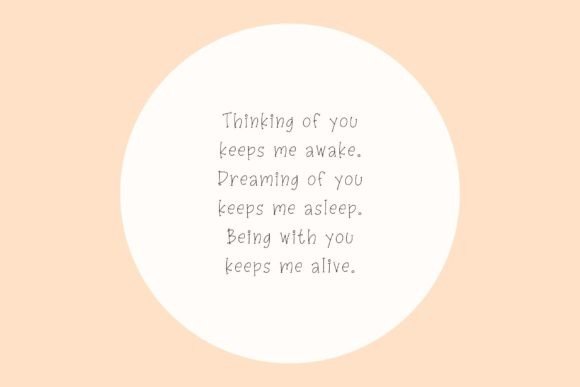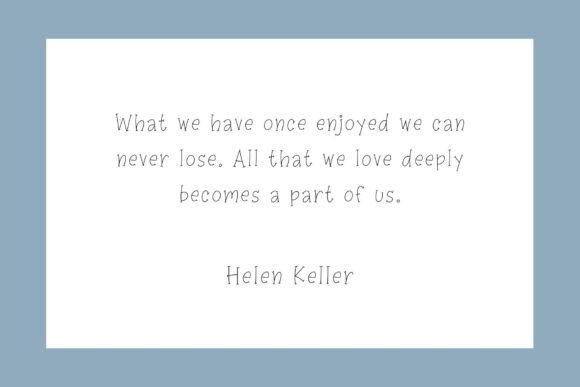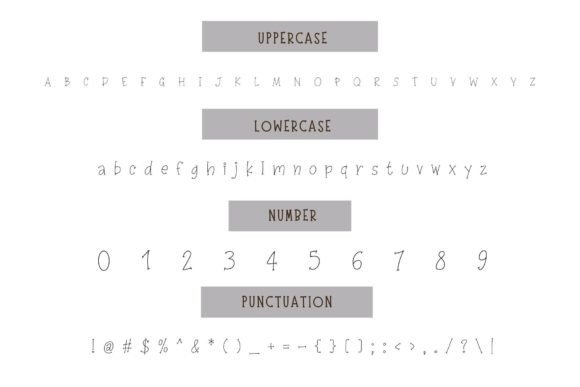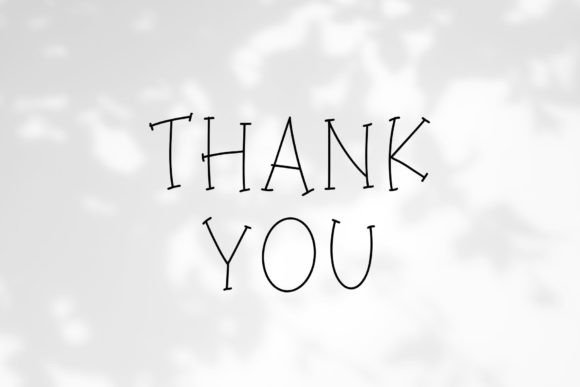
Introducing Grant Font: The Cute Handwritten Font for Creative Projects
Are you looking for a font that embodies playfulness and authenticity? Look no further than Grant Font! This adorable handwritten font is perfect for adding a personal touch to your designs, making it ideal for a wide range of projects. In this article, we’ll explore the features and benefits of Grant Font, and show you how to make the most of this versatile font.
What is Grant Font?
Grant Font is a cute handwritten font that is designed to bring a sense of playfulness and authenticity to your designs. Its unique and charming style makes it perfect for a variety of projects, from blog posts and logos to branding, ads, invitations, greeting cards, planners, photo albums, decorations, and more.
Key Features of Grant Font
- Handwritten style: Grant Font has a beautiful, handwritten style that gives your designs a personal and unique touch.
- Playful and authentic: The font embodies playfulness and authenticity, making it perfect for projects that require a friendly and approachable tone.
- Versatile: Grant Font can be used for a wide range of projects, from digital designs to print materials.
Benefits of Using Grant Font
So why choose Grant Font for your projects? Here are just a few benefits of using this amazing font:
- Adds a personal touch: Grant Font gives your designs a personal and unique touch, making them stand out from the crowd.
- Enhances creativity: The font’s playful and authentic style inspires creativity and imagination, helping you to come up with innovative design ideas.
- Perfect for branding: Grant Font is ideal for branding projects, as it helps to create a friendly and approachable tone that resonates with audiences.
- Great for DIY projects: The font is perfect for DIY enthusiasts and crafters who want to add a personal touch to their projects.
Project Ideas Using Grant Font
Grant Font is perfect for a wide range of projects, including:
- Blog posts: Use Grant Font to add a personal touch to your blog posts and make them more engaging.
- Logos and branding: The font is ideal for creating logos and branding materials that require a friendly and approachable tone.
- Invitations and greeting cards: Grant Font is perfect for creating invitations and greeting cards that are personalized and unique.
- Planners and journals: The font is great for creating planners and journals that are both functional and stylish.
- Decorations: Use Grant Font to create beautiful decorations, such as wall art and signs, that add a personal touch to your home or office.
Grant Font is a versatile and charming handwritten font that is perfect for adding a personal touch to your designs. With its playful and authentic style, it’s ideal for a wide range of projects, from blog posts and logos to branding, ads, invitations, and more. Whether you’re a designer, crafter, or DIY enthusiast, Grant Font is a great addition to your font library. So why wait? Download Grant Font today and start creating amazing designs that stand out from the crowd!